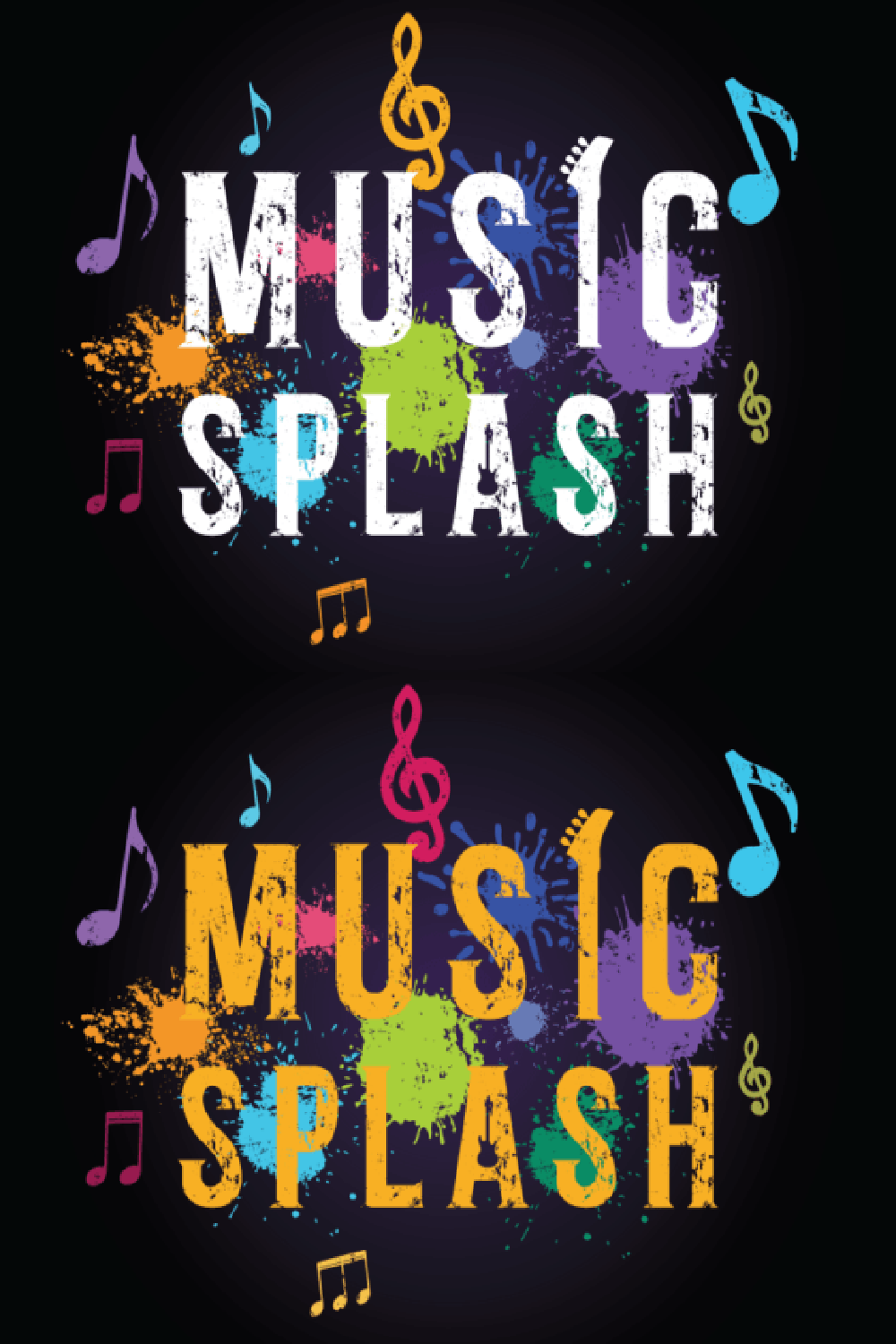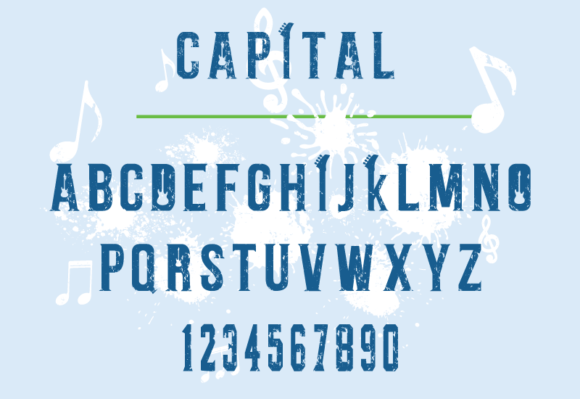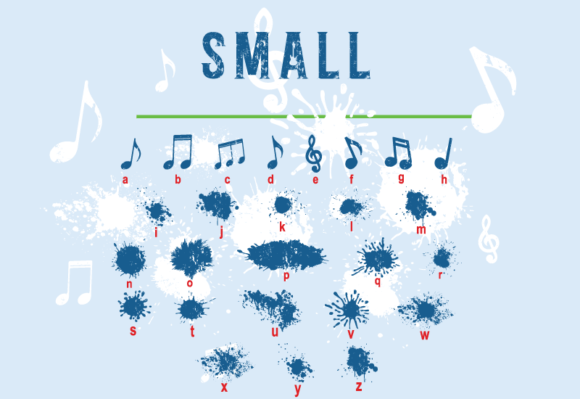
Music Splash Font: A Creative & Playful Display Font for Posters
About the Music Splash Font
The wait is over! The incredible Music Splash Font is now available for your design toolkit. Unveiling Music Splash, a meticulously fashioned decorative font. Crafted with impeccable accuracy, this font carries a minimalist grace, as airy and smooth as a harmonious tune. In this you will get music Notes, lots of Splash designs in “Small Letters”, and also you will get high-quality grunge regular music font in “Capital Letters”. Immerse in the melody of words with Music Splash, a font that doesn’t just speak, it sings. This font is lots of fun just drag and drop and play around with it, you will get high-quality artwork that you can use in your creative projects. Let’s start your fun with this font.